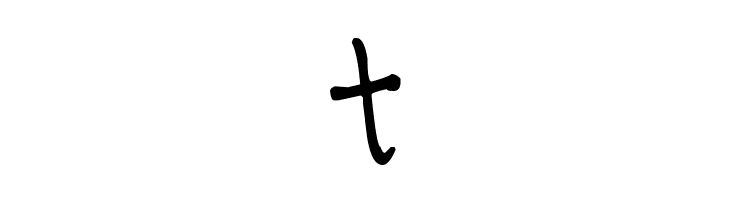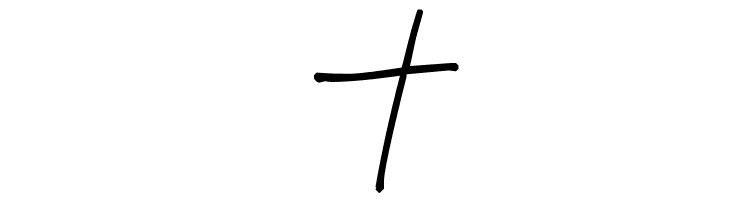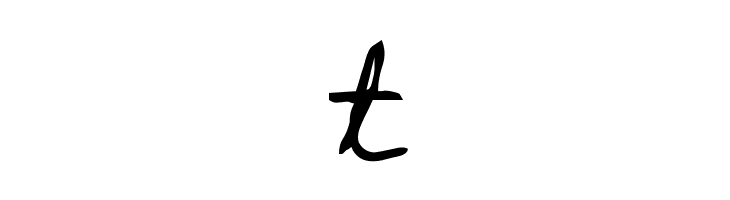
An expressive, artistic handwritten font with dynamic strokes.
A casual, handwritten style font with a dynamic and lively feel.
A playful, casual handwritten font with uneven strokes and a personal touch.
A playful, casual handwritten font with uneven strokes and a relaxed style.
A bold, playful handwritten font with a casual and friendly style.